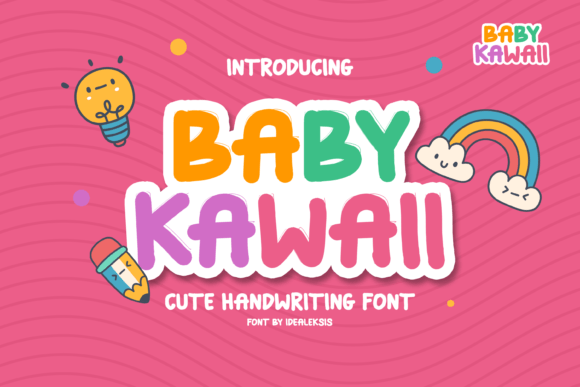
Introducing Baby Kawaii Font, the ultimate choice for all your creative projects that need a touch of pure joy and playfulness. Created by Idealeksis, this delightful display font brings an irresistible charm to any design, captivating both kids and adults alike.
With its playful letterforms, Baby Kawaii Font radiates sheer delight and whimsy. Each character is carefully crafted to exude cuteness and fun, making it the perfect companion for kids' posters, invitations, birthday cards, and more. Let your imagination run wild as you bring a burst of vibrant energy to your designs.
This font family is specifically designed for those seeking the best fonts for kids' posters. It effortlessly captures the essence of childhood with its captivating curves and lively strokes. Whether you're creating educational materials or designing a playful logo, Baby Kawaii Font will make your content shine and leave a lasting impression.
One of the most compelling reasons to download Baby Kawaii Font is its ability to evoke emotions. Its whimsical nature instantly uplifts moods and brings a smile to anyone who encounters it. Imagine the joy on children's faces as they explore a world filled with magical letterforms that spark their imagination.
Not only does Baby Kawaii Font inspire happiness, but it also guarantees readability. Each character is meticulously designed to ensure clarity, ensuring that your message comes across effortlessly. Say goodbye to dull and monotonous fonts and embrace the vibrancy that Baby Kawaii Font brings to your projects.
Whether you're a professional designer or a parent looking to add a touch of magic to your child's world, Baby Kawaii Font is the answer. Its versatility allows it to be used in a wide range of applications, from branding to packaging, ensuring that your creations stand out from the crowd.